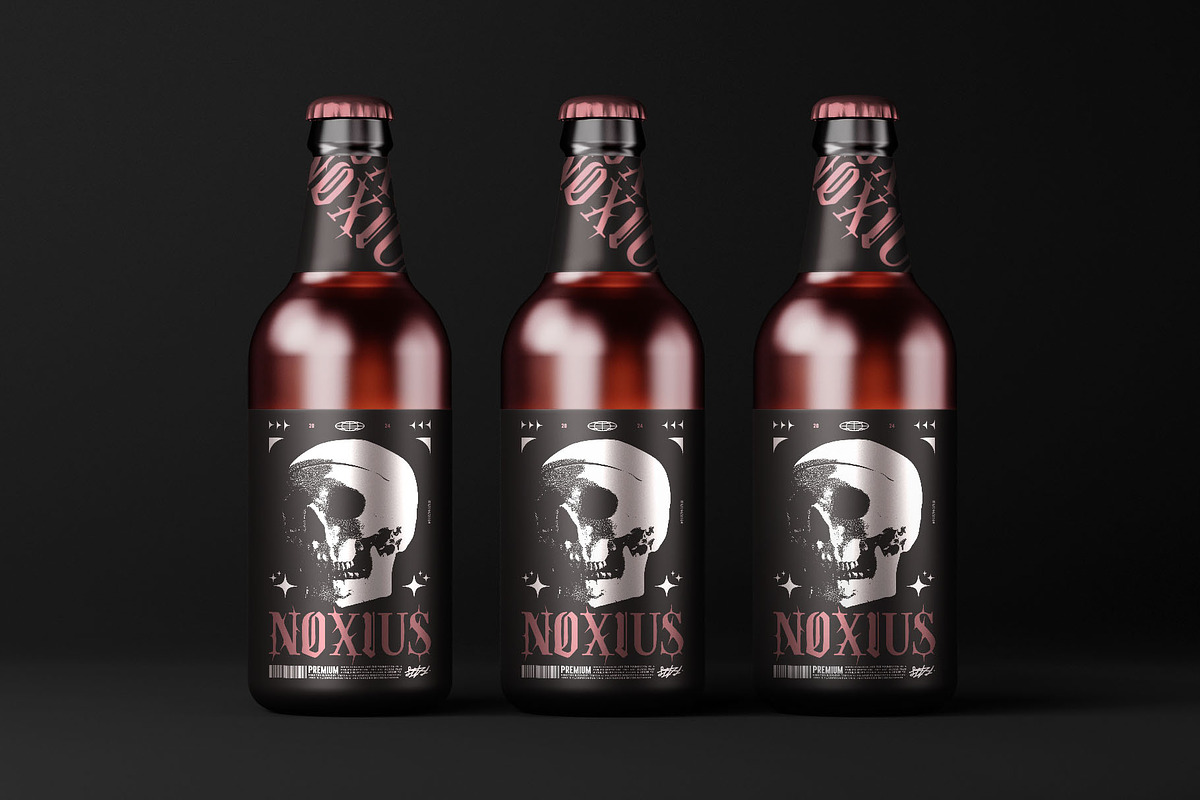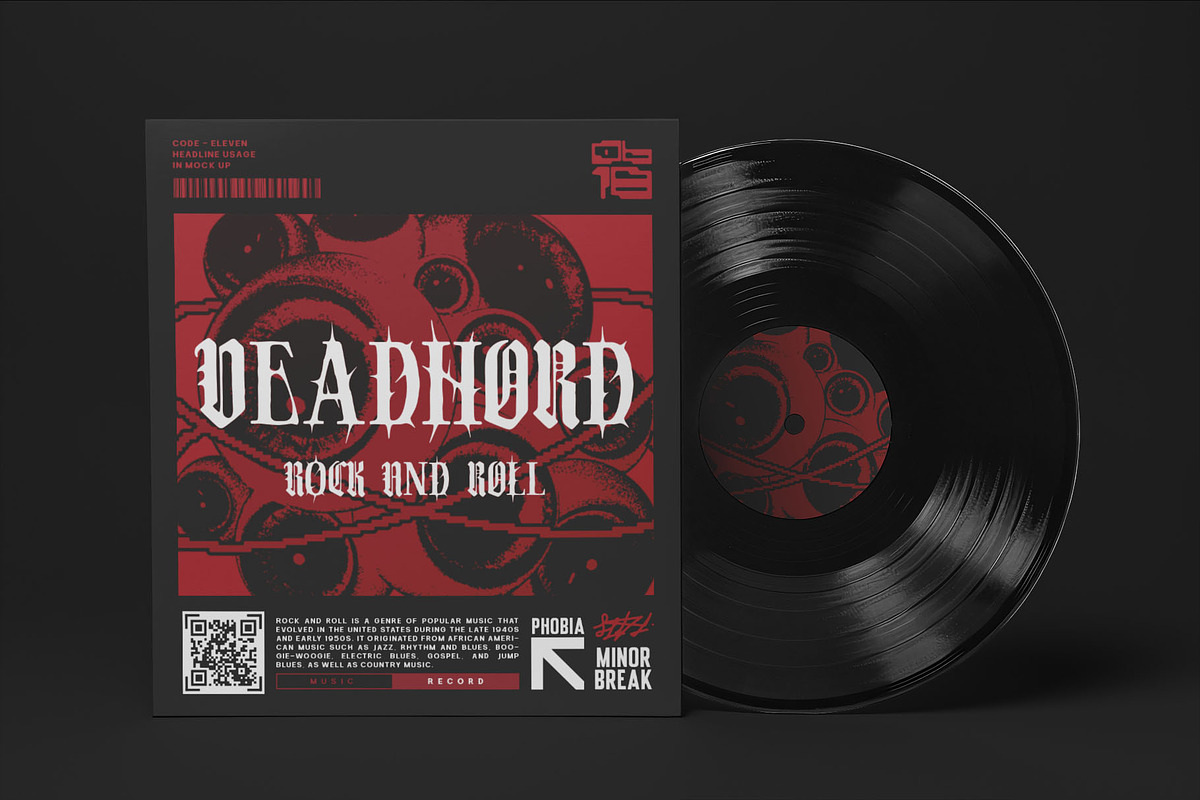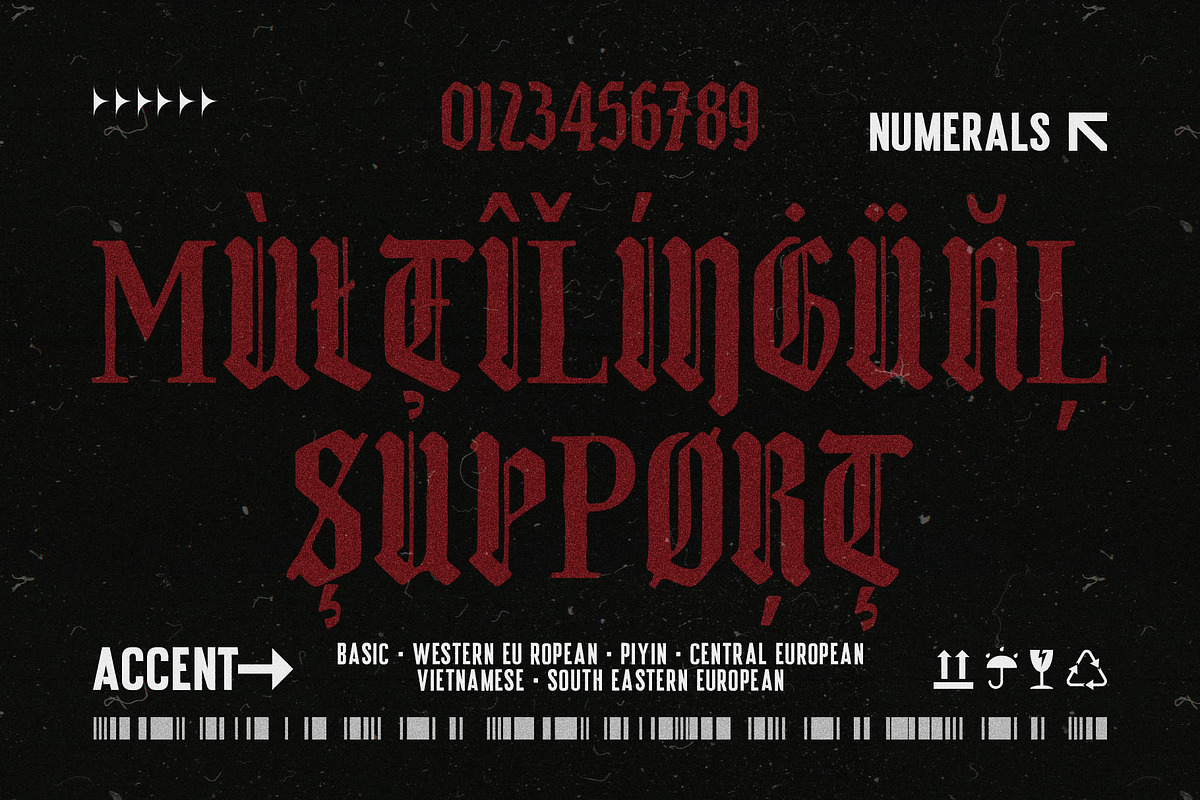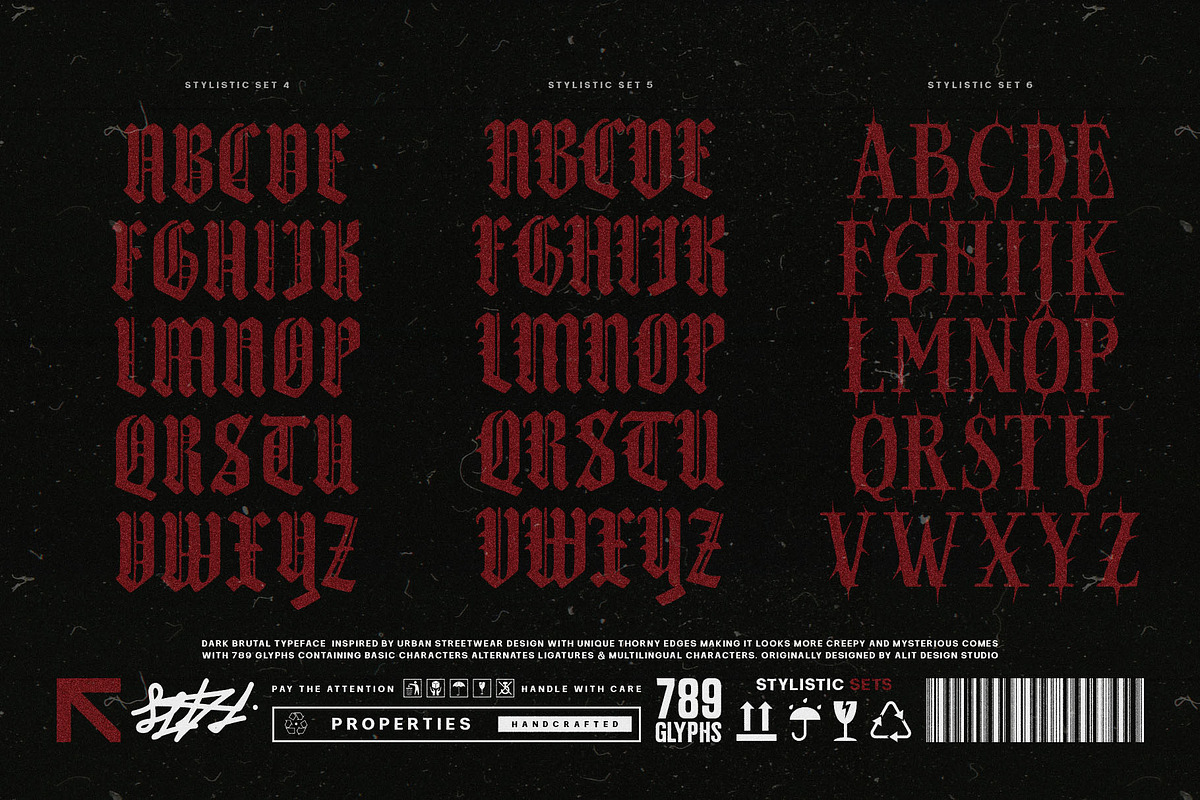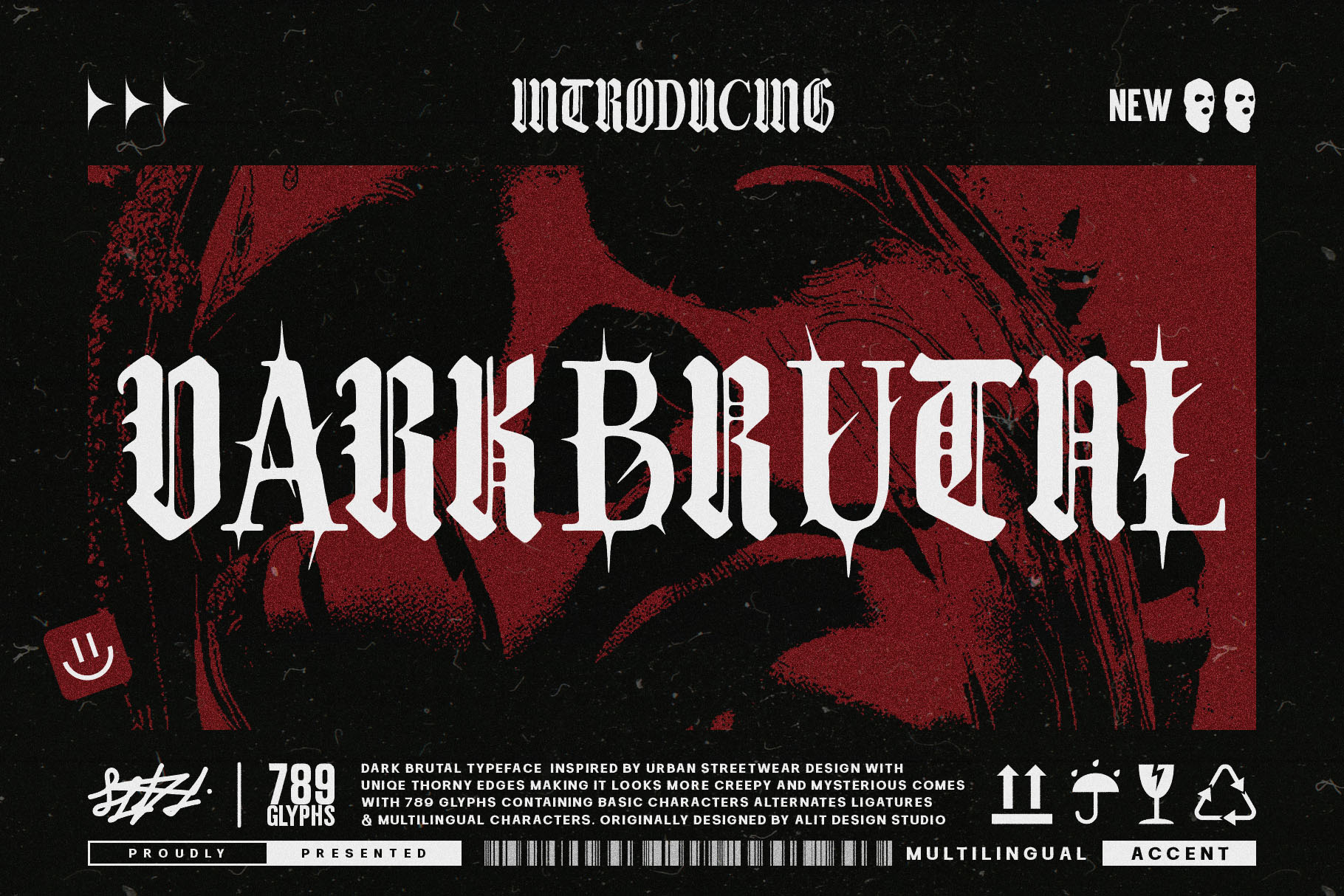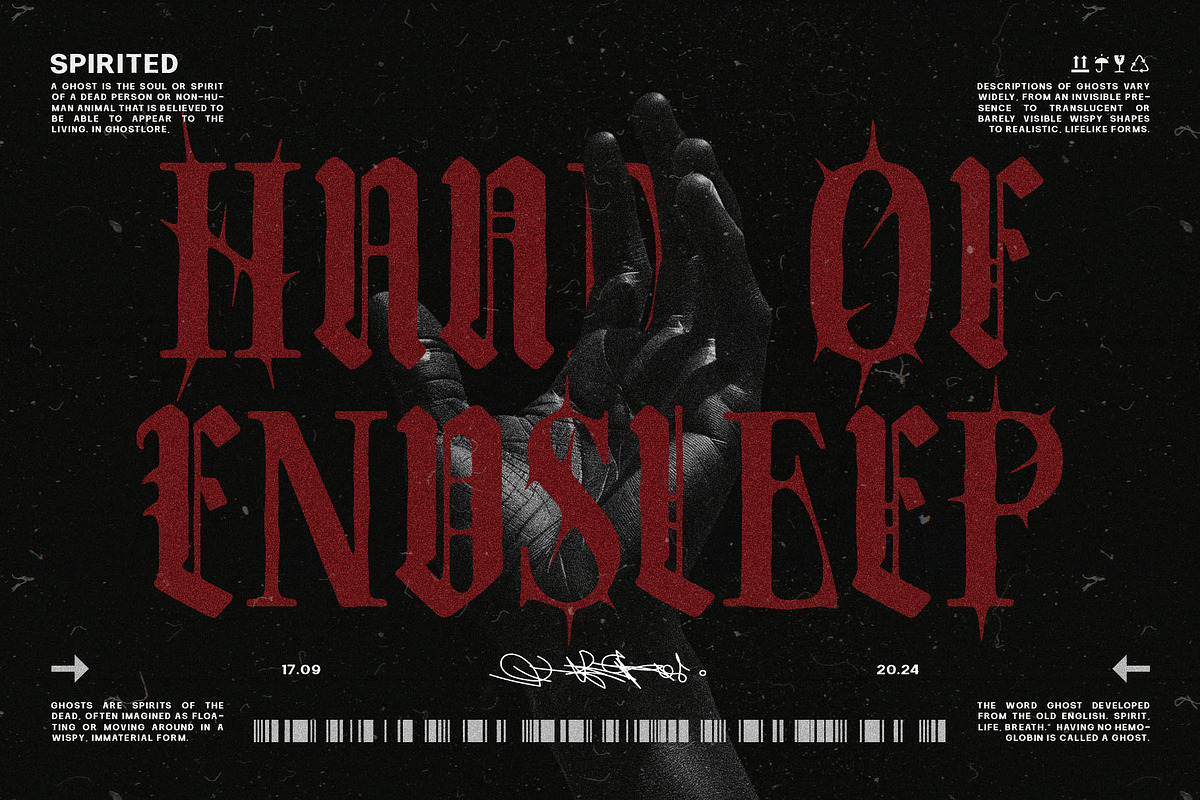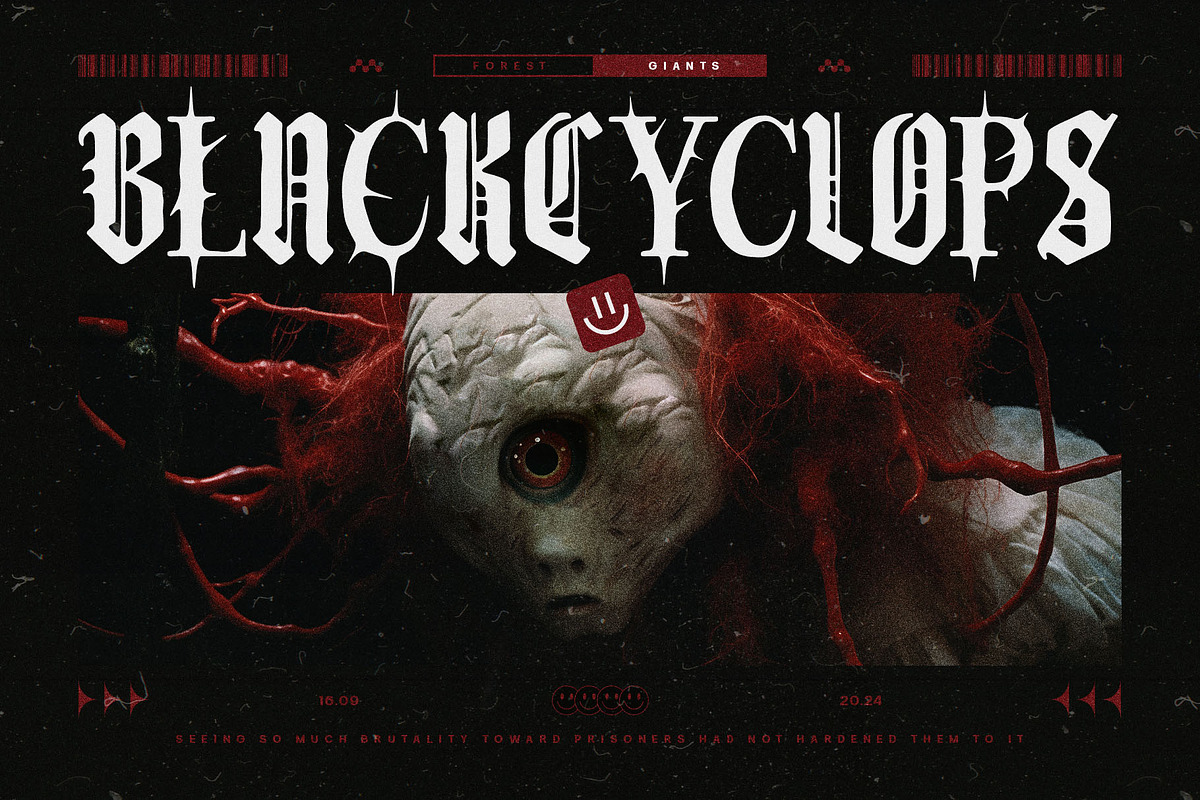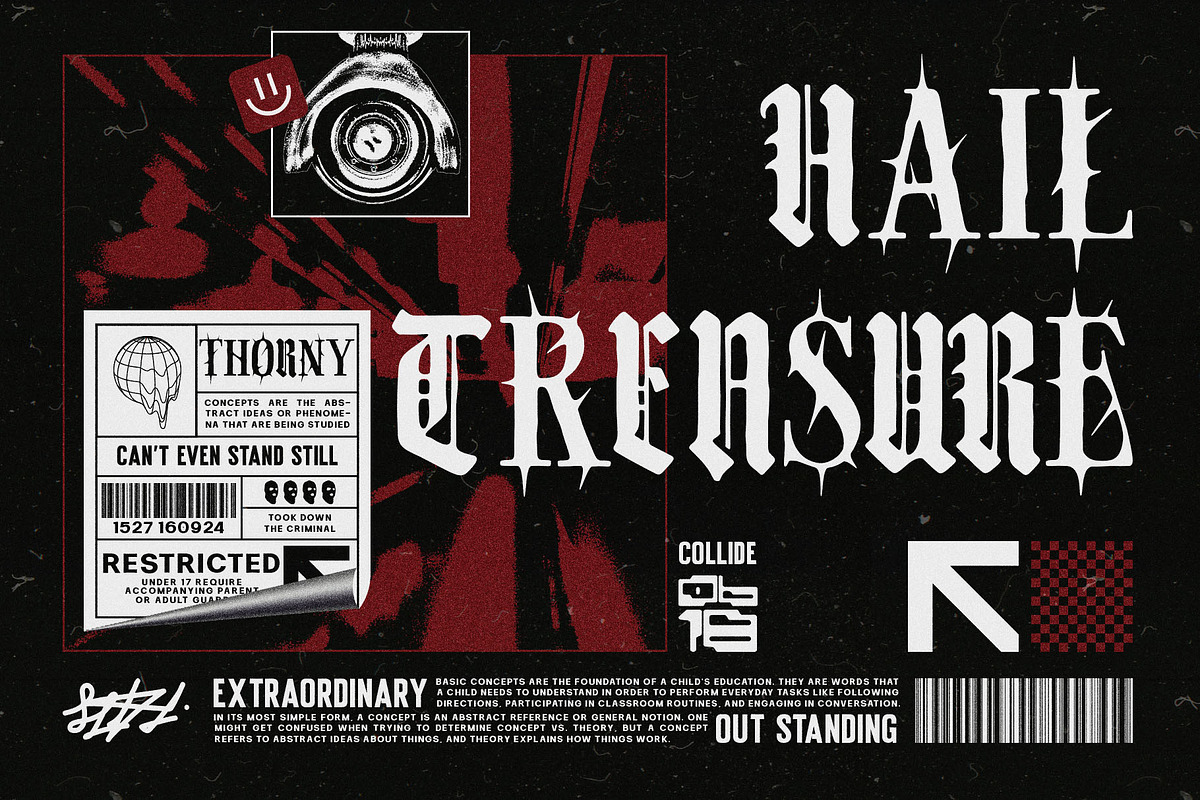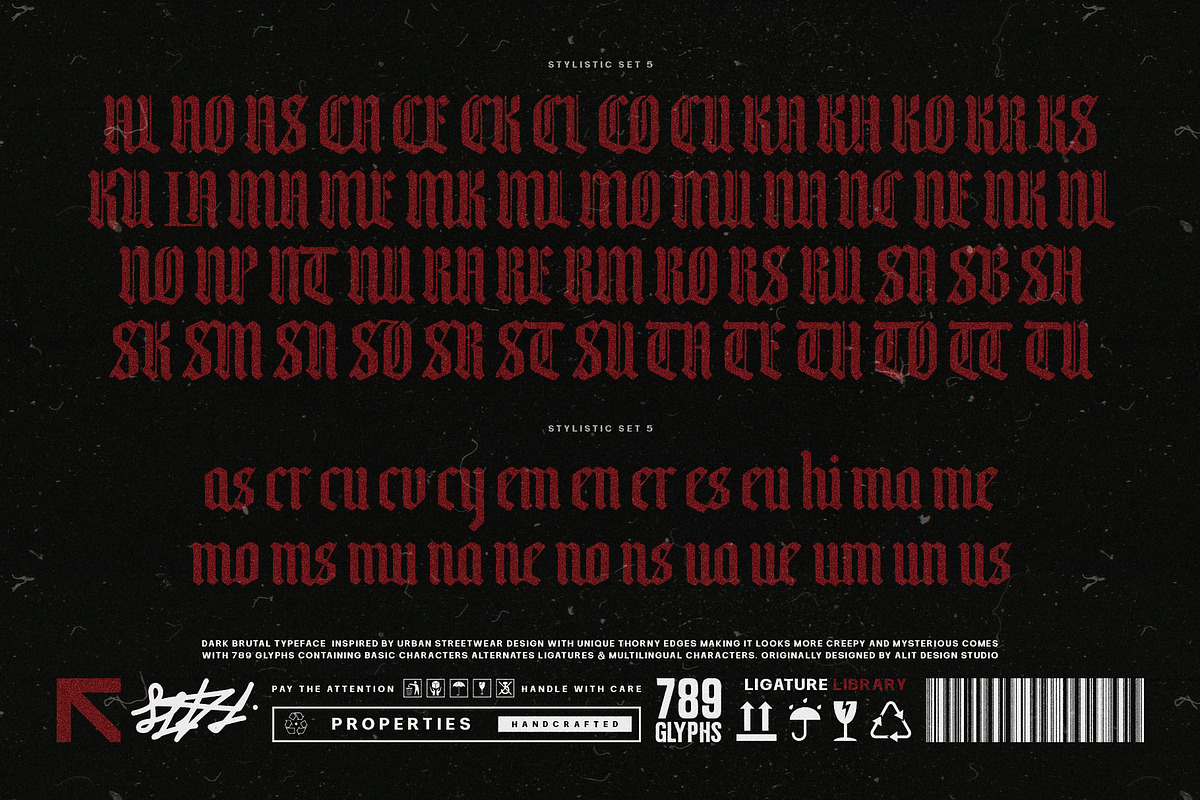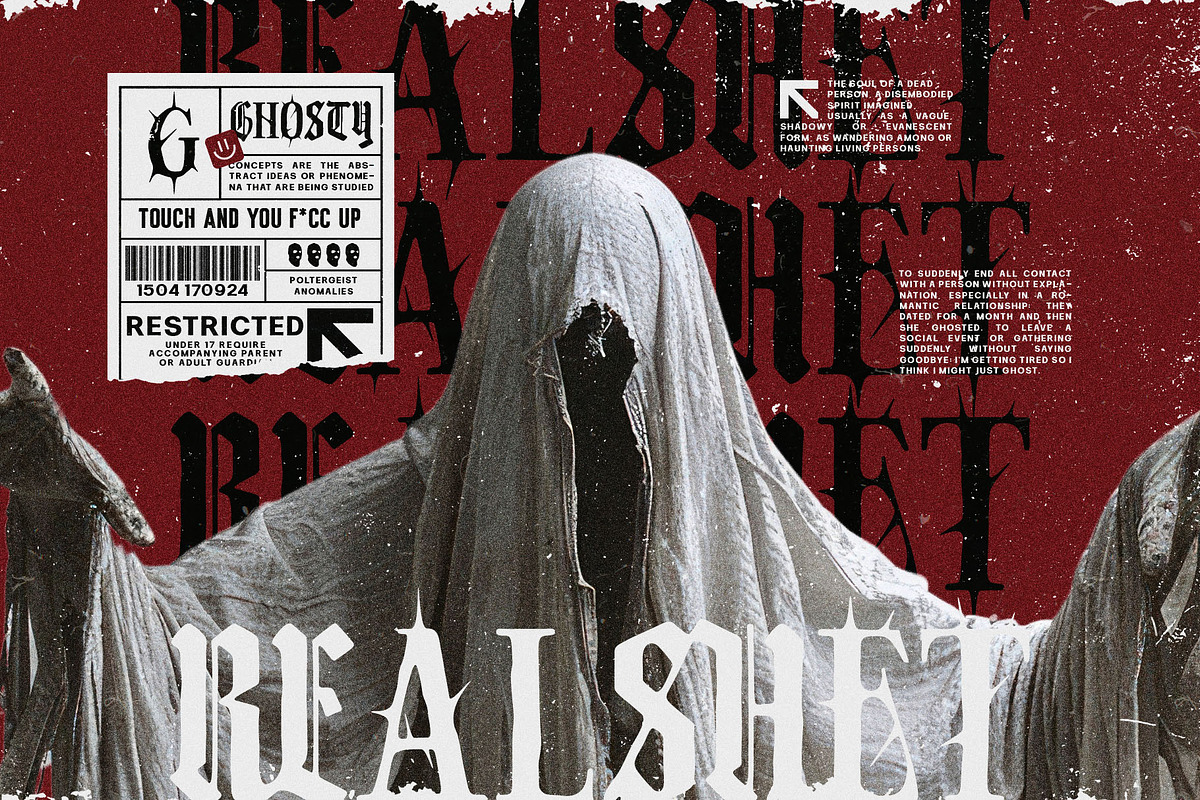
Dark Brutal Typeface
Introducing Dark Brutal Typeface, a powerful and unapologetically rugged blackletter font crafted for those who embrace the intensity of bold design. This font embodies the spirit of rebellion with its sharp edges, distressed strokes, and dark, medieval-inspired aesthetic. Perfect for creating a fierce visual impact, it’s ideal for projects that demand attention—whether it’s in music, fashion, or alternative branding.
784 Characters: Packed with a vast range of glyphs, Dark Brutal Typeface gives you the freedom to explore multiple creative possibilities. Every character is meticulously designed to maintain a cohesive yet dynamic style across your text.
Alternates & Ligatures: Customize your typography further with alternate characters and ligatures, enabling you to add unique touches to every word or phrase. These features ensure that your design stands out with its own distinctive personality.
Multilingual Support: Whether your project is in English, French, German, Spanish, or other languages, Dark Brutal Typeface is equipped with extensive language support. With its comprehensive character set, the font supports a wide array of alphabets, allowing your designs to speak to global audiences.
- Heavy metal, punk, and gothic-themed posters and album covers.
- Edgy branding and logo designs that need a dark, authoritative presence.
- Clothing lines, streetwear, or merchandise seeking a gritty, rebellious vibe.
- Tattoo designs, custom lettering, and creative projects with a rough, ancient feel.
The Dark Brutal Typeface is not just a font—it’s a visual statement. With its rough textures and imposing style, it gives every project a sense of unrelenting power. Whether you’re designing for print, web, or merchandise, this typeface brings a bold, dramatic edge that demands attention.
Unleash the darkness with Dark Brutal Typeface, and watch your designs transform into raw, unrefined works of art.